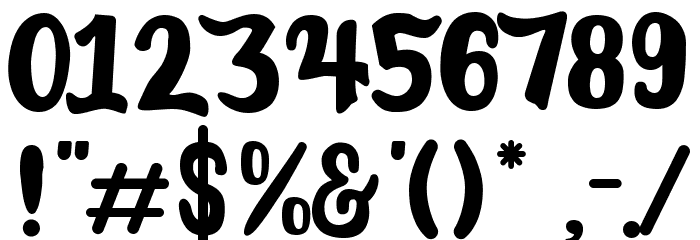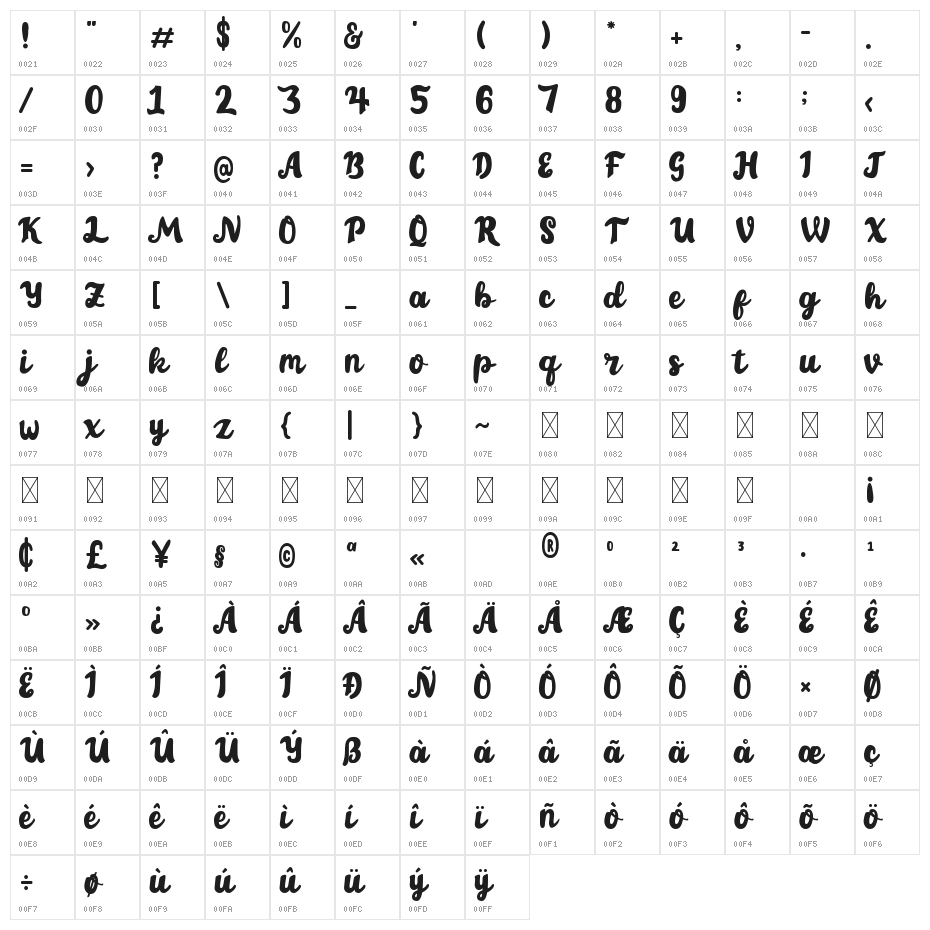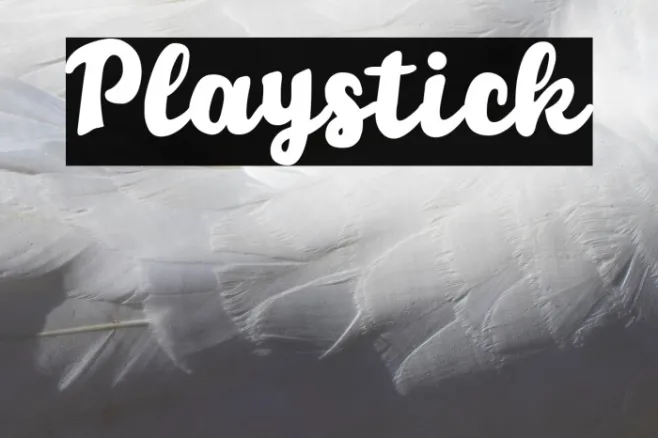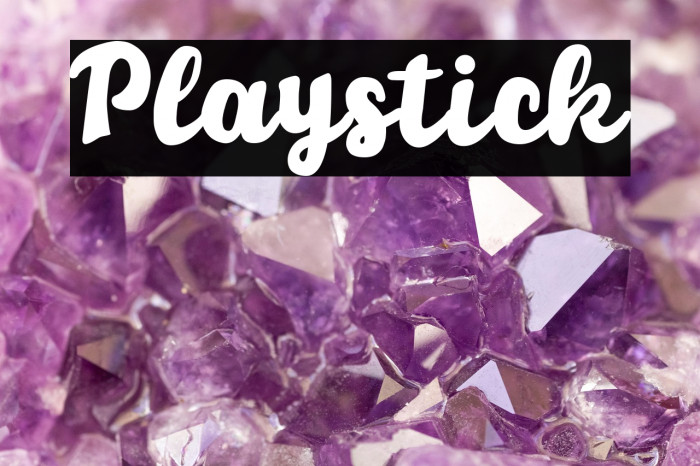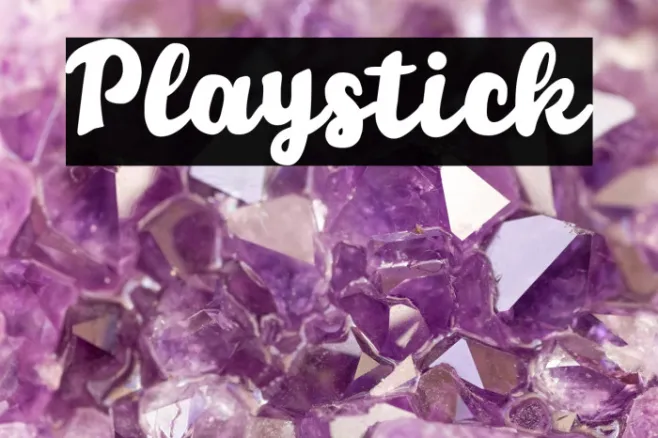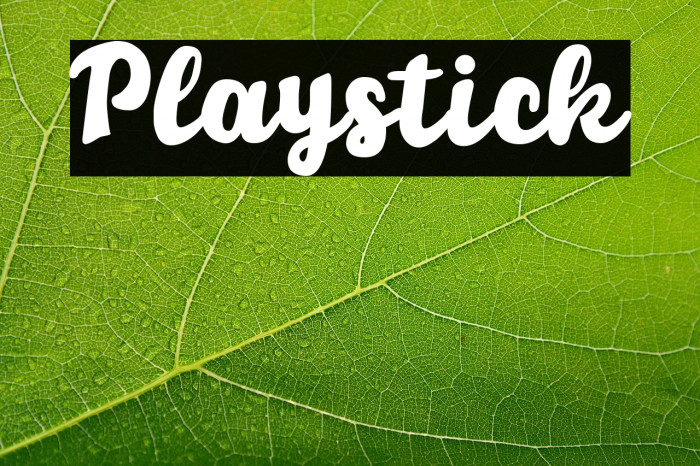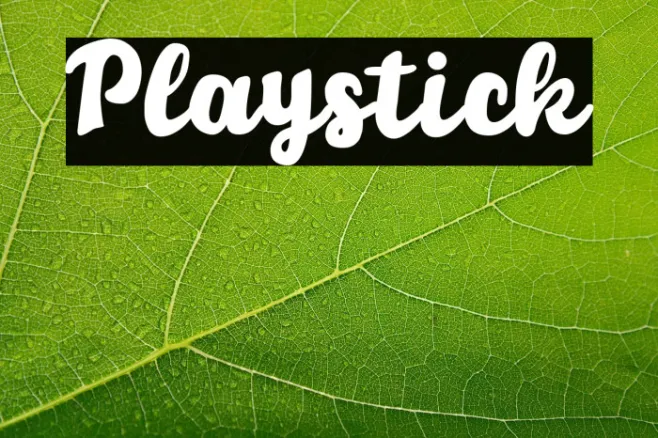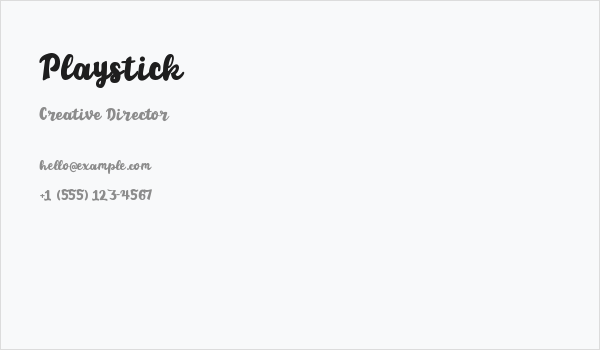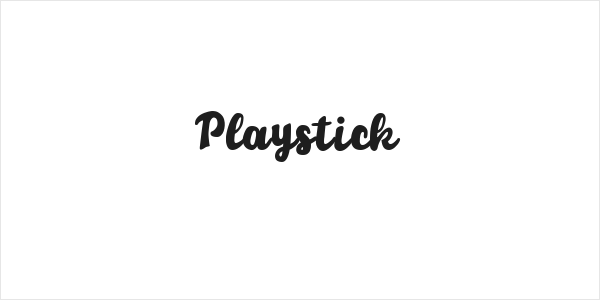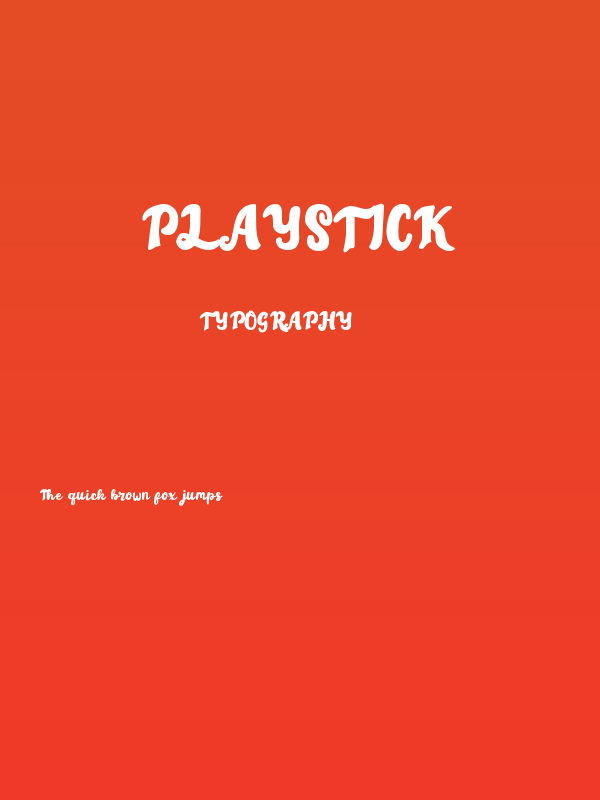
Playstick Font
Playstick Description
This font is a bold and playful script style that exudes a sense of fun and creativity. The characters are rounded and connected, giving it a handwritten feel that is both casual and inviting. The uppercase letters are slightly larger and more pronounced, while the lowercase letters maintain a consistent flow. Numbers and special characters are designed to match the playful aesthetic, making them suitable for a variety of informal applications. The overall appearance is dynamic and lively, perfect for projects that require a touch of personality and flair.
| Proposed Projects | Ideal for greeting cards, playful branding, children's books, and creative posters. |